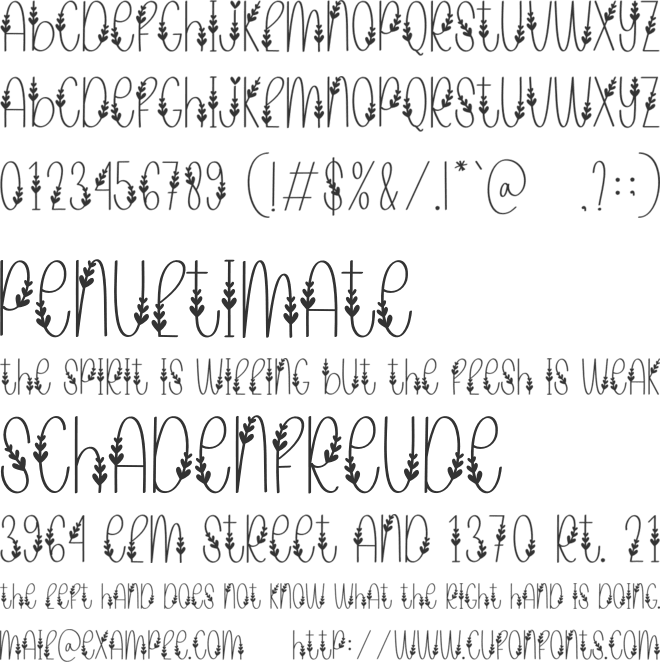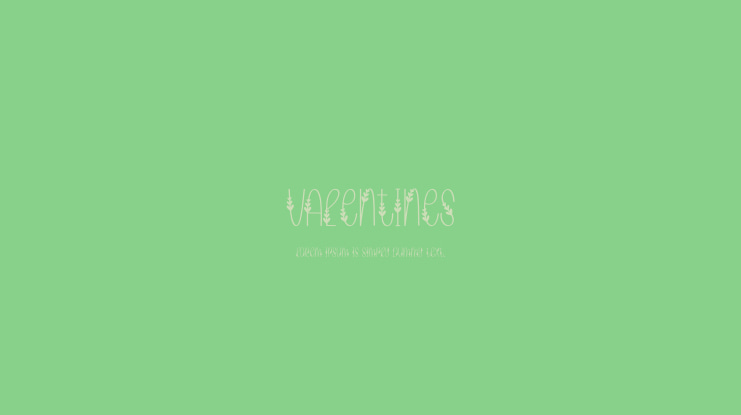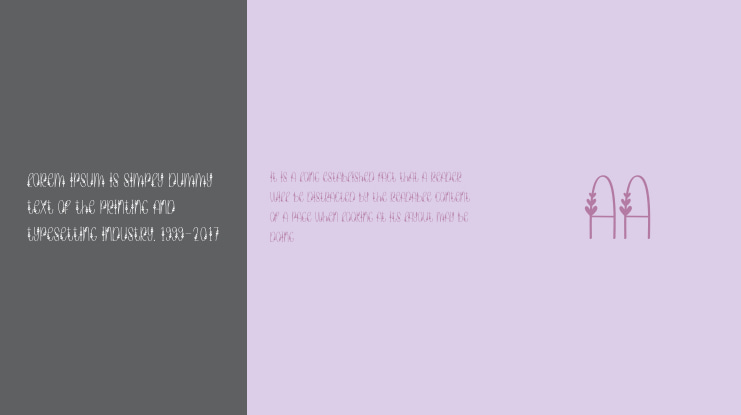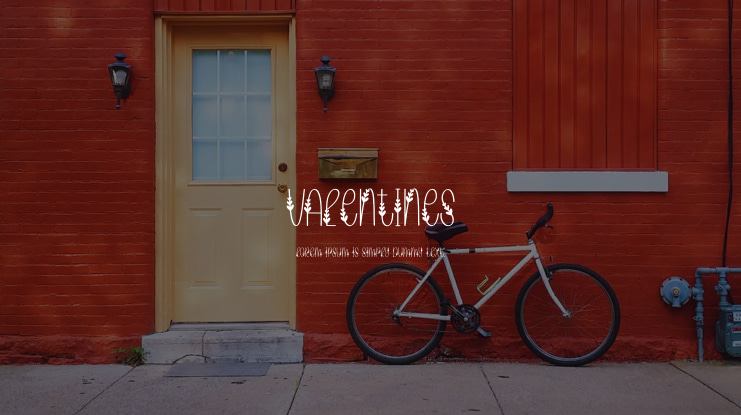
Our latest stylish font is perfect for a variety of purposes including wall displays, wedding invitations, social media logos, advertisements, product packaging, labels, photography, watermarks, invitations, stationery, and any project that requires elegant handwriting.